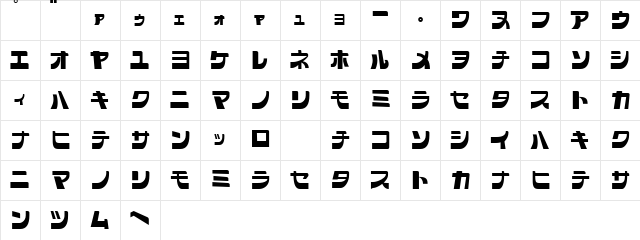
SCRAP KANA
Design Context for SCRAP Typeface
SCRAP offers clean, dependable letterforms without strong stylistic allegiance, making it a practical choice for designers who need flexibility.
Pro Tip: Use SCRAP in both headline and body roles to test its range before committing to a single application.